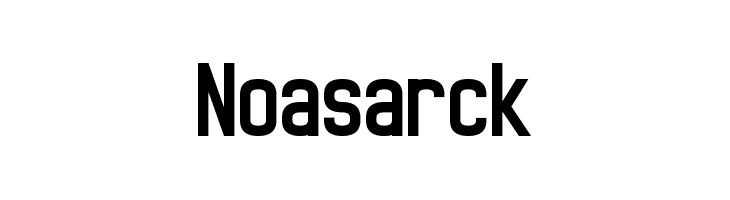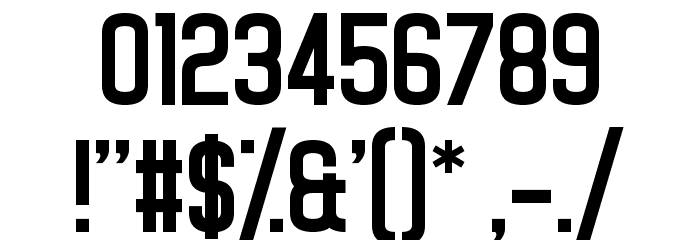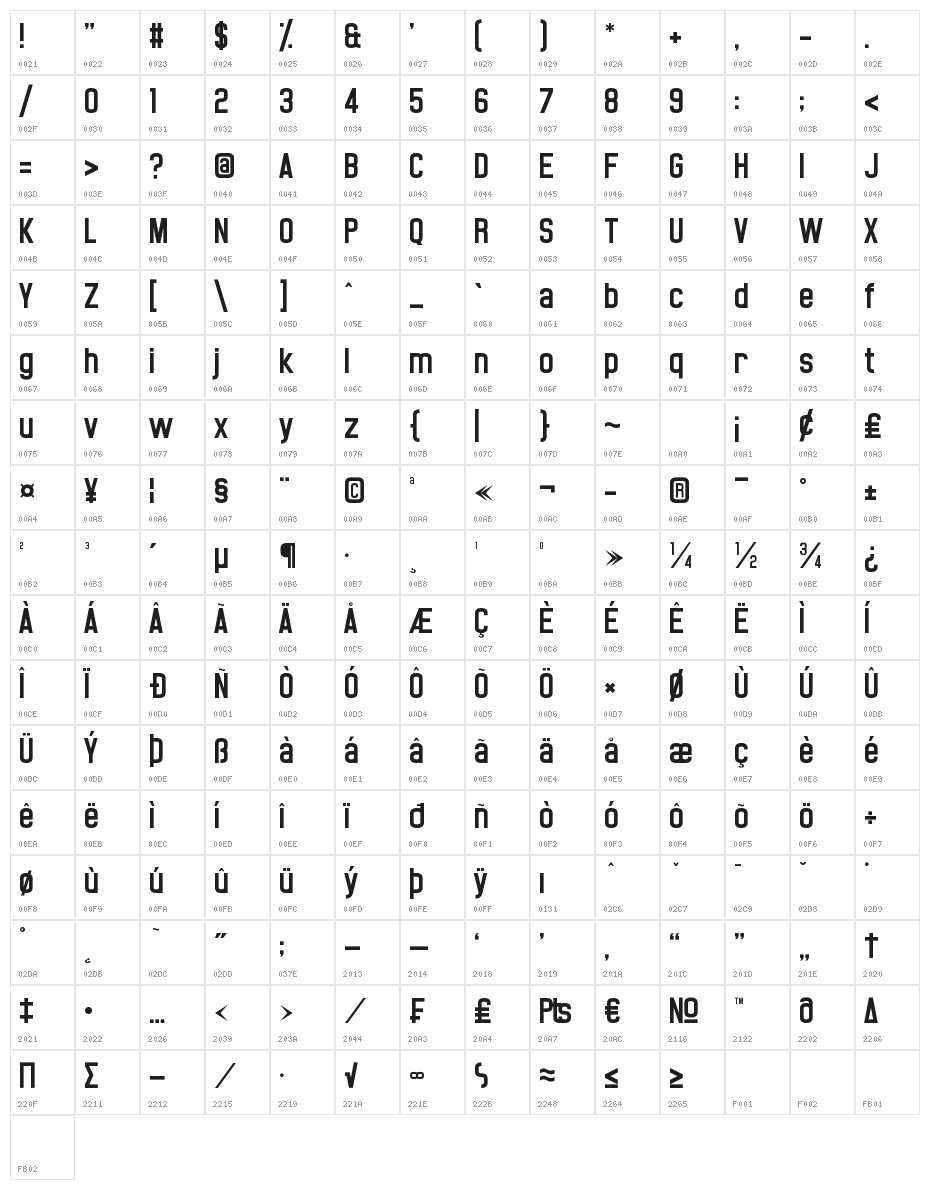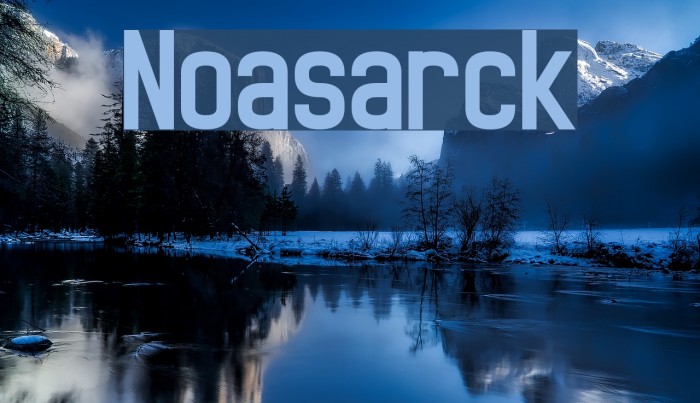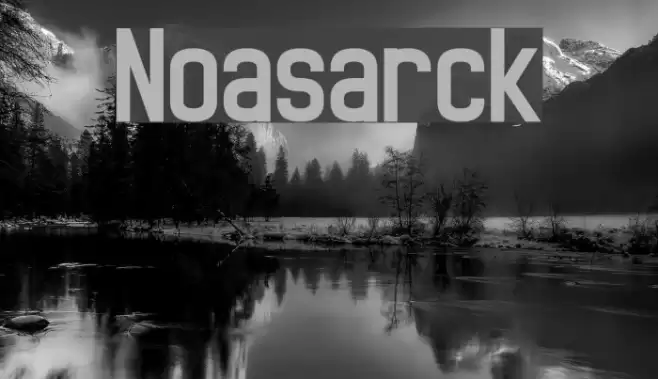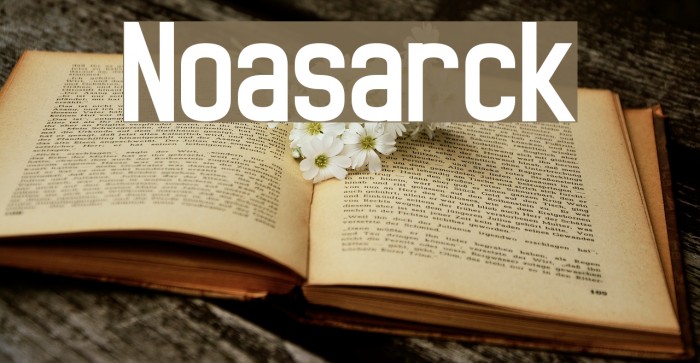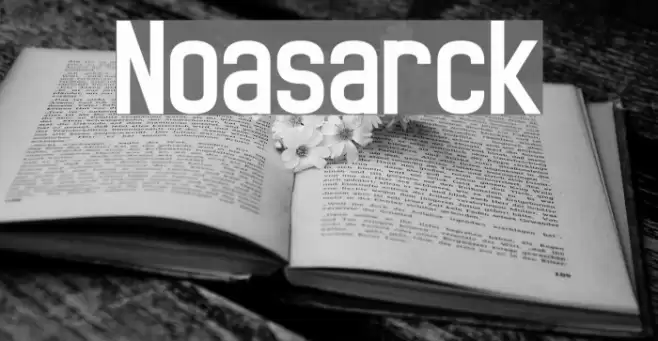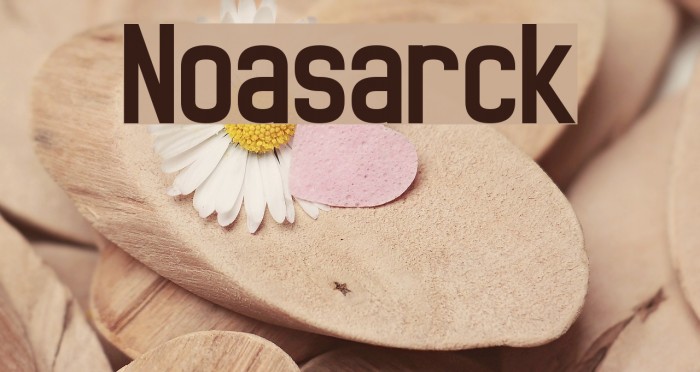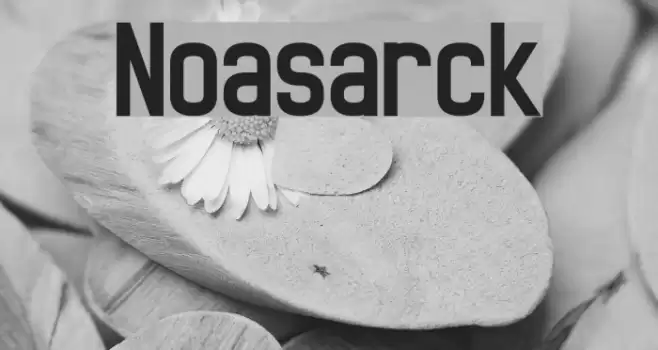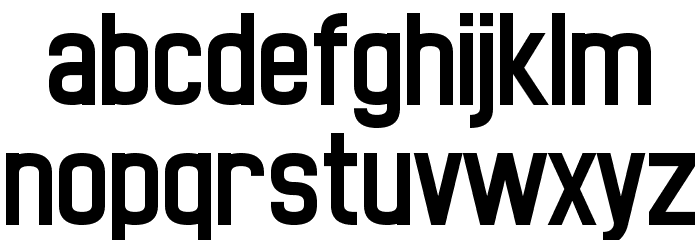
Noasarck Font
Noasarck Description
This font features a bold and modern design with clean lines and a strong presence. The uppercase and lowercase letters are well-proportioned, offering a sense of balance and readability. The numerals are consistent with the overall style, maintaining the boldness and clarity seen in the alphabet. Special characters are distinct and integrate seamlessly with the rest of the character set. The font's geometric structure and uniform stroke width contribute to its contemporary appeal, making it suitable for a variety of design applications.